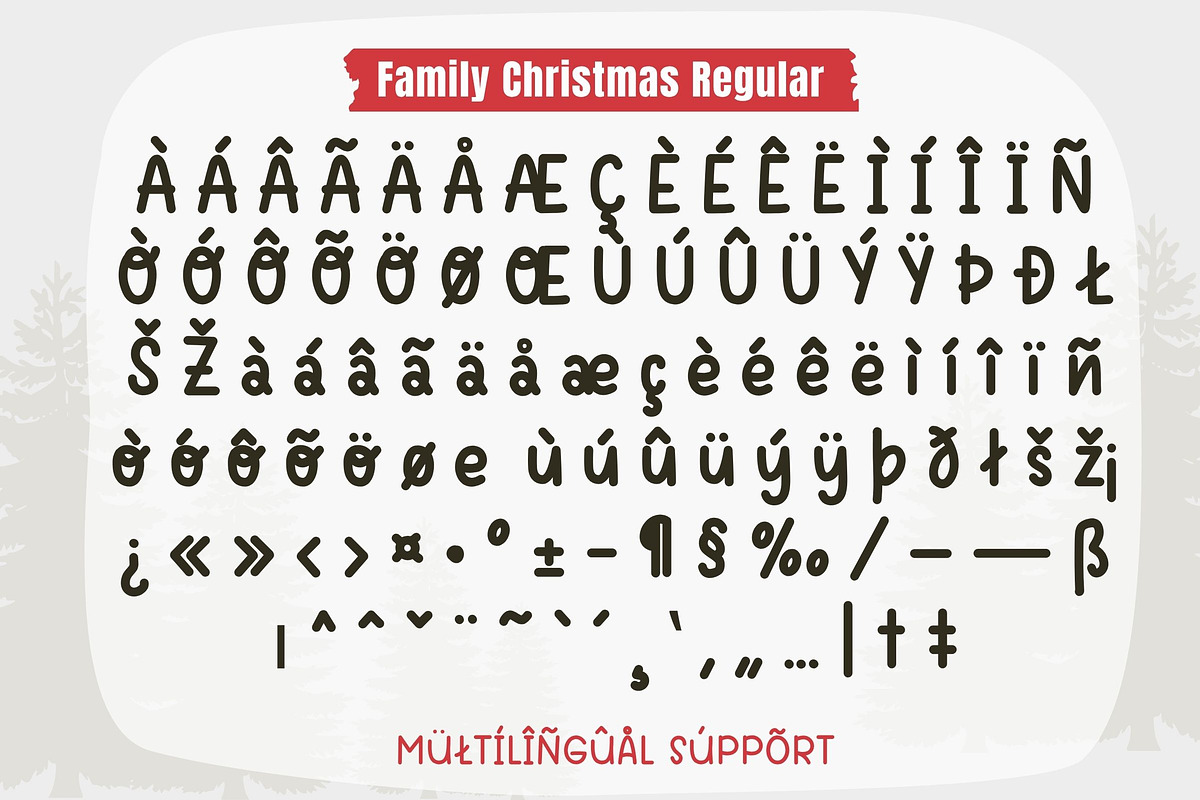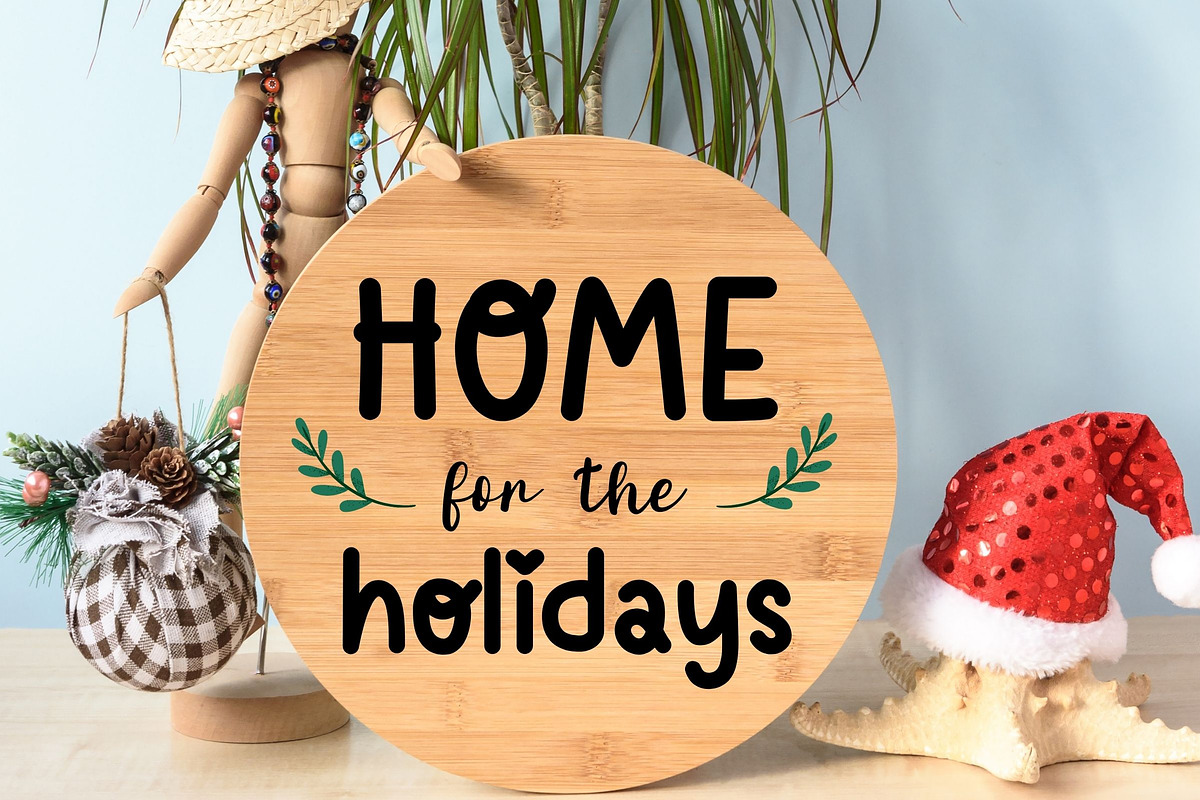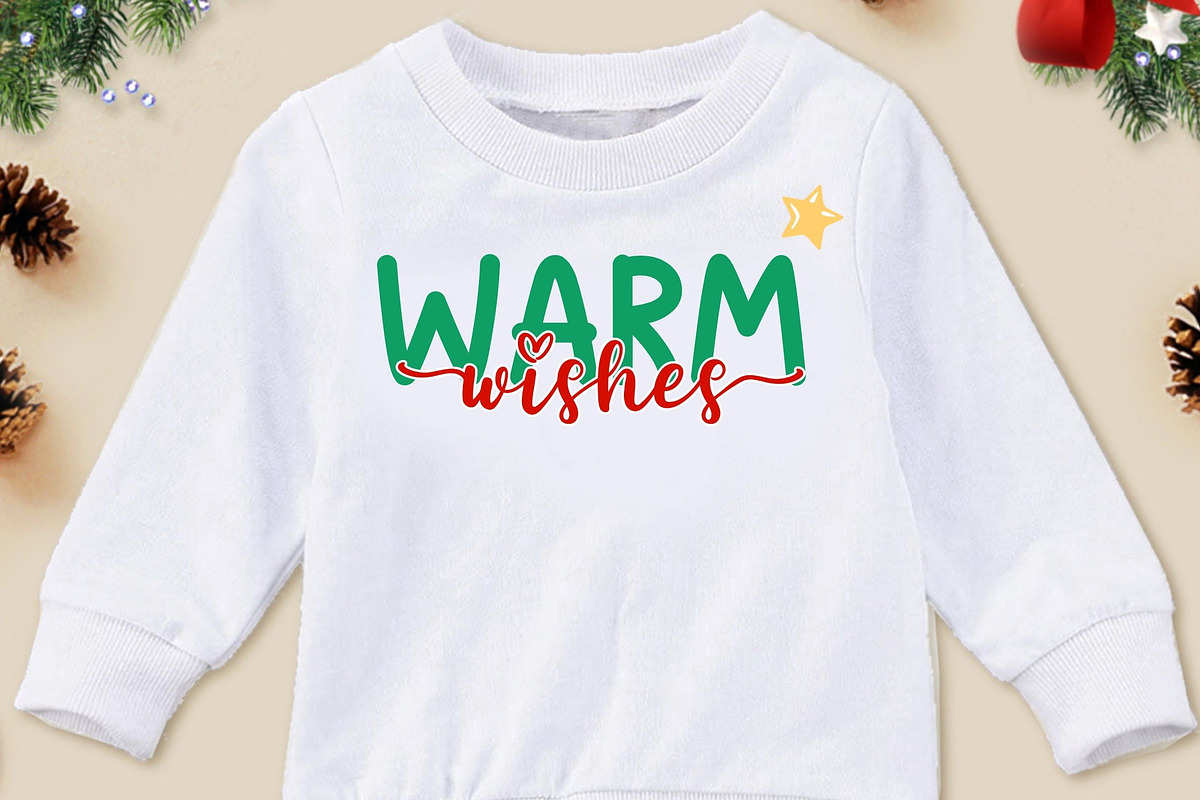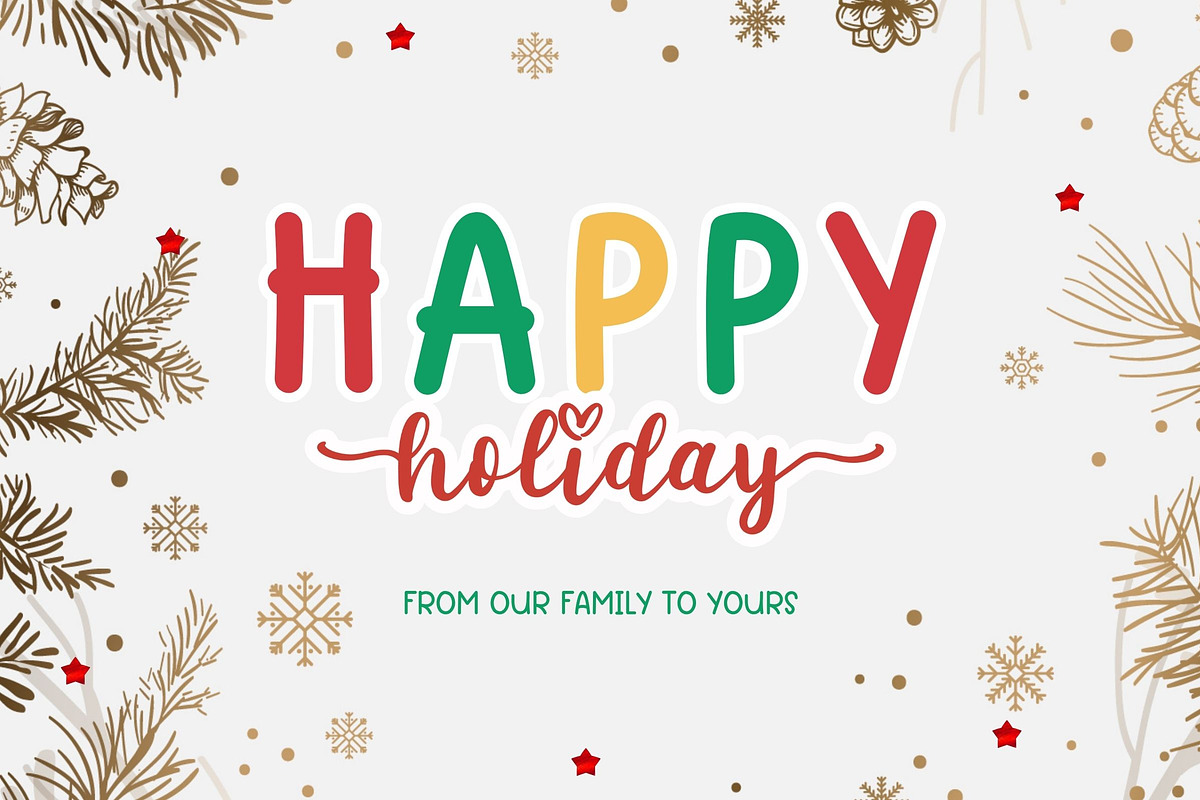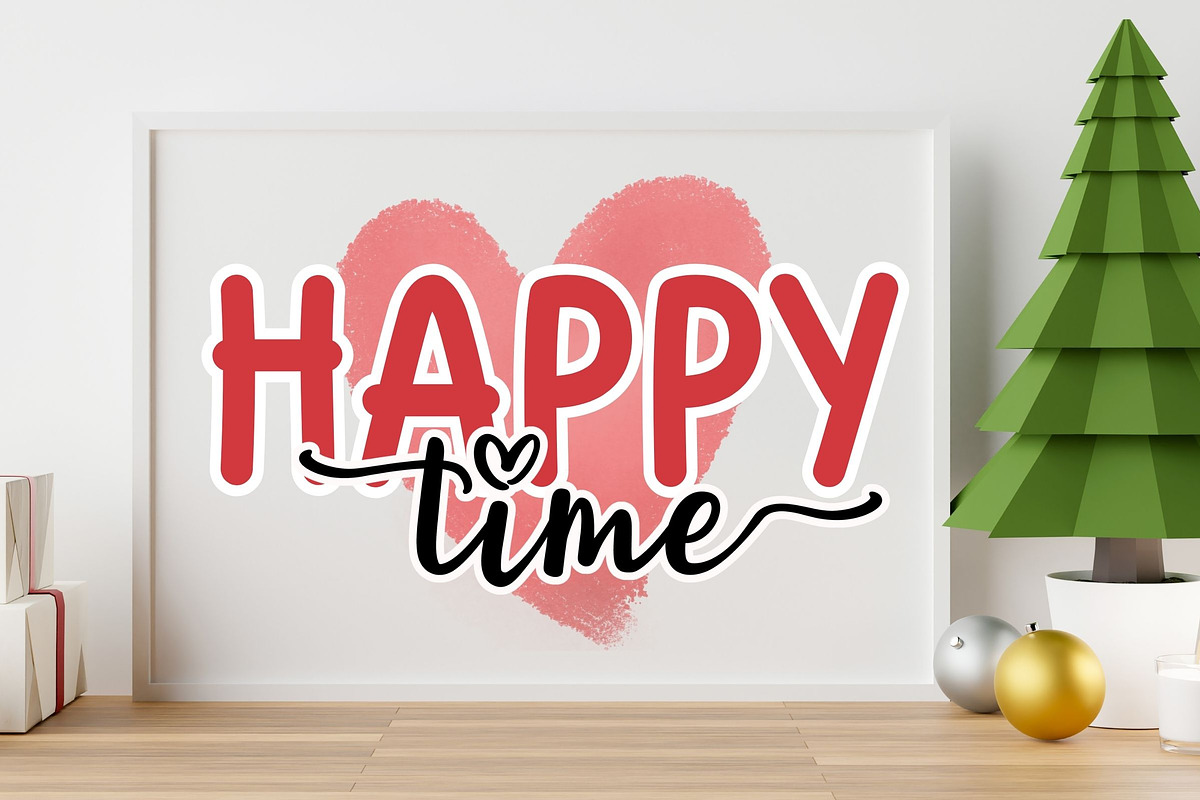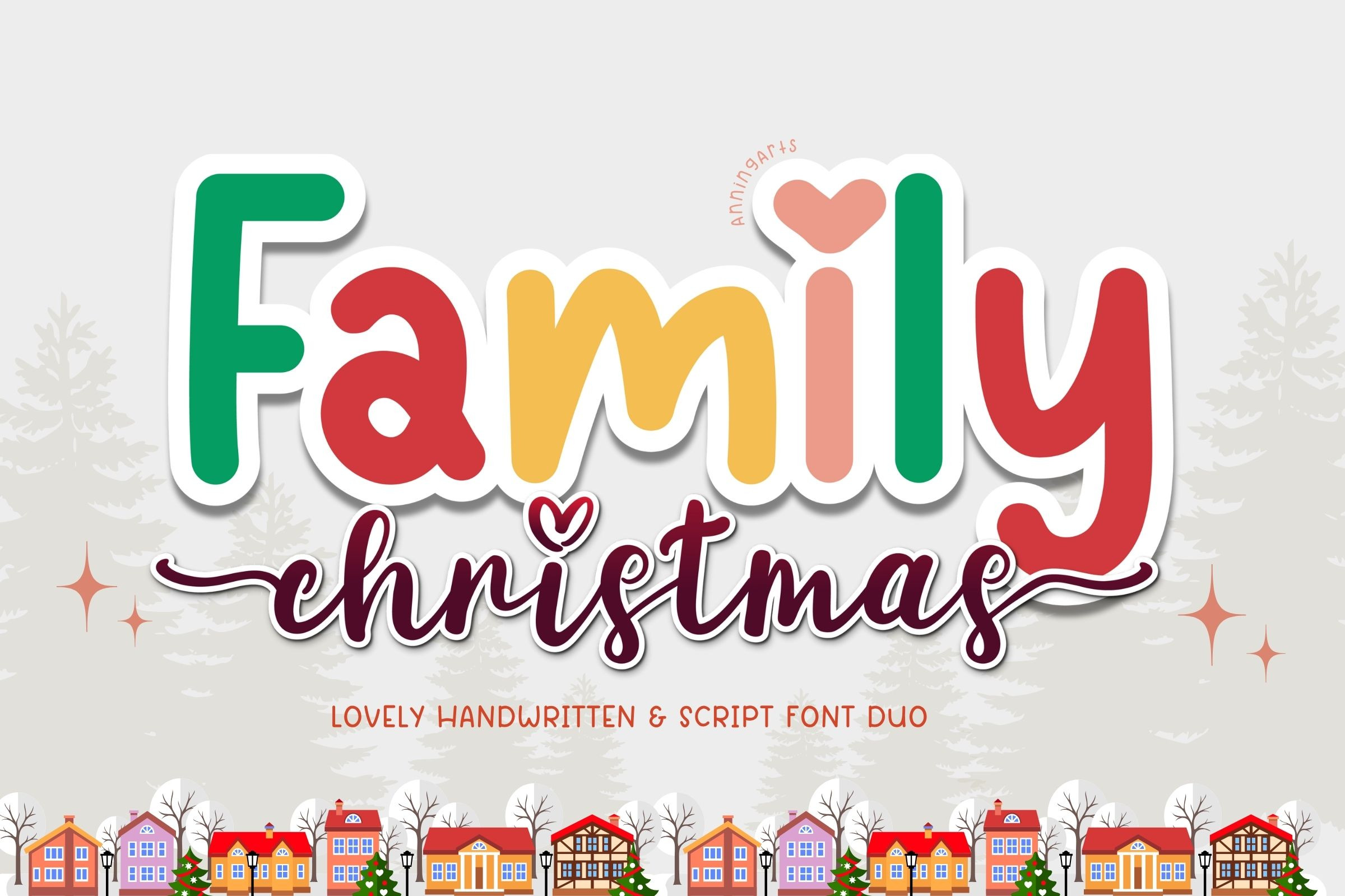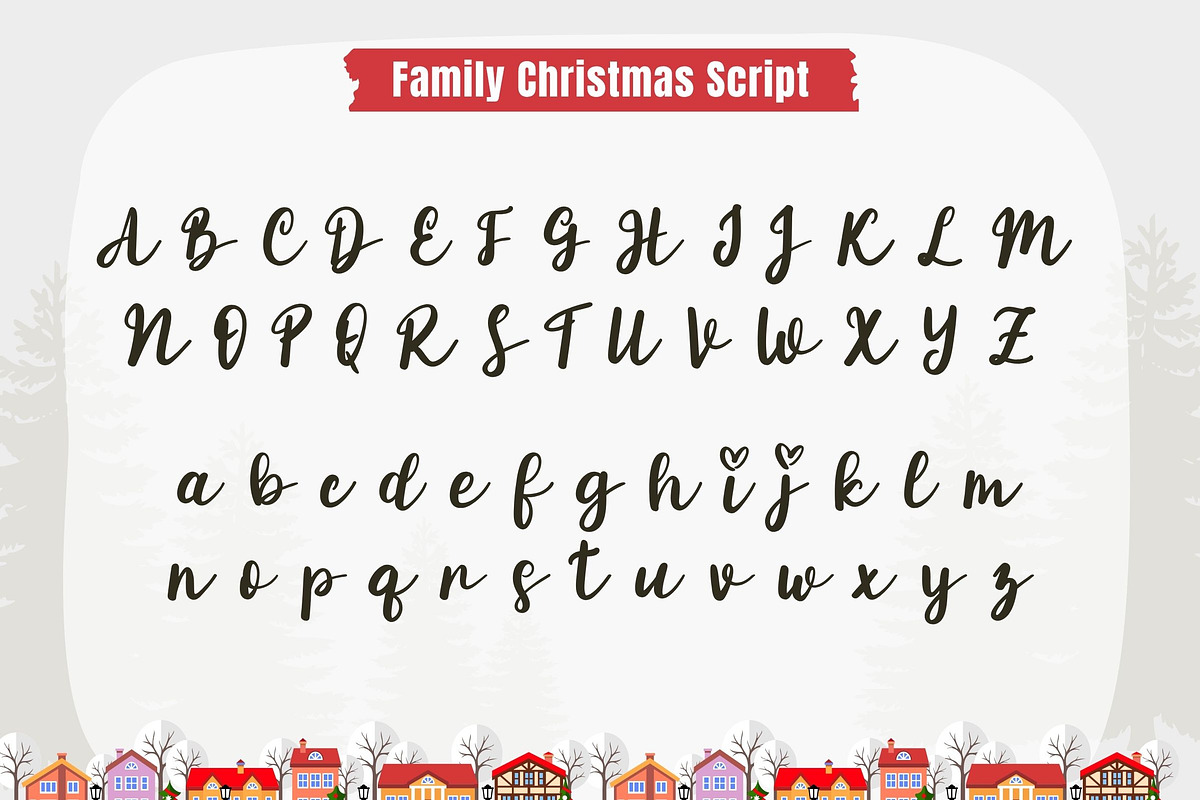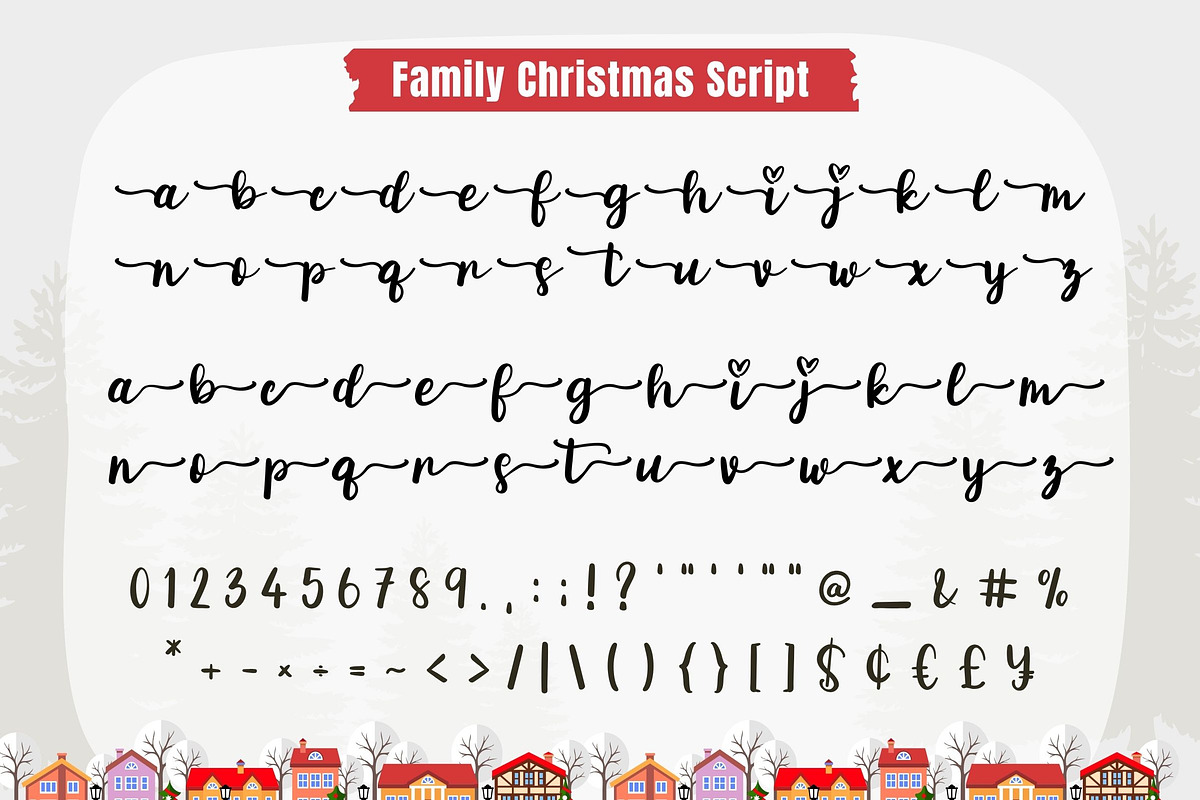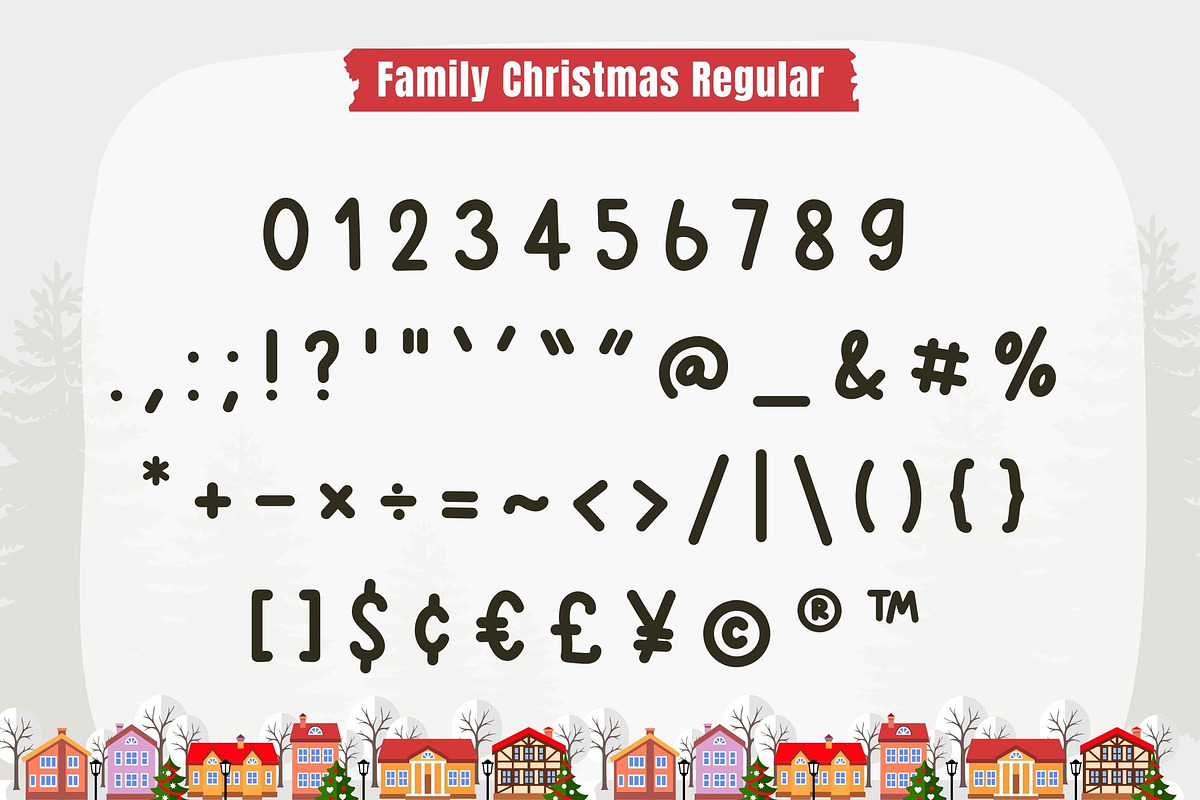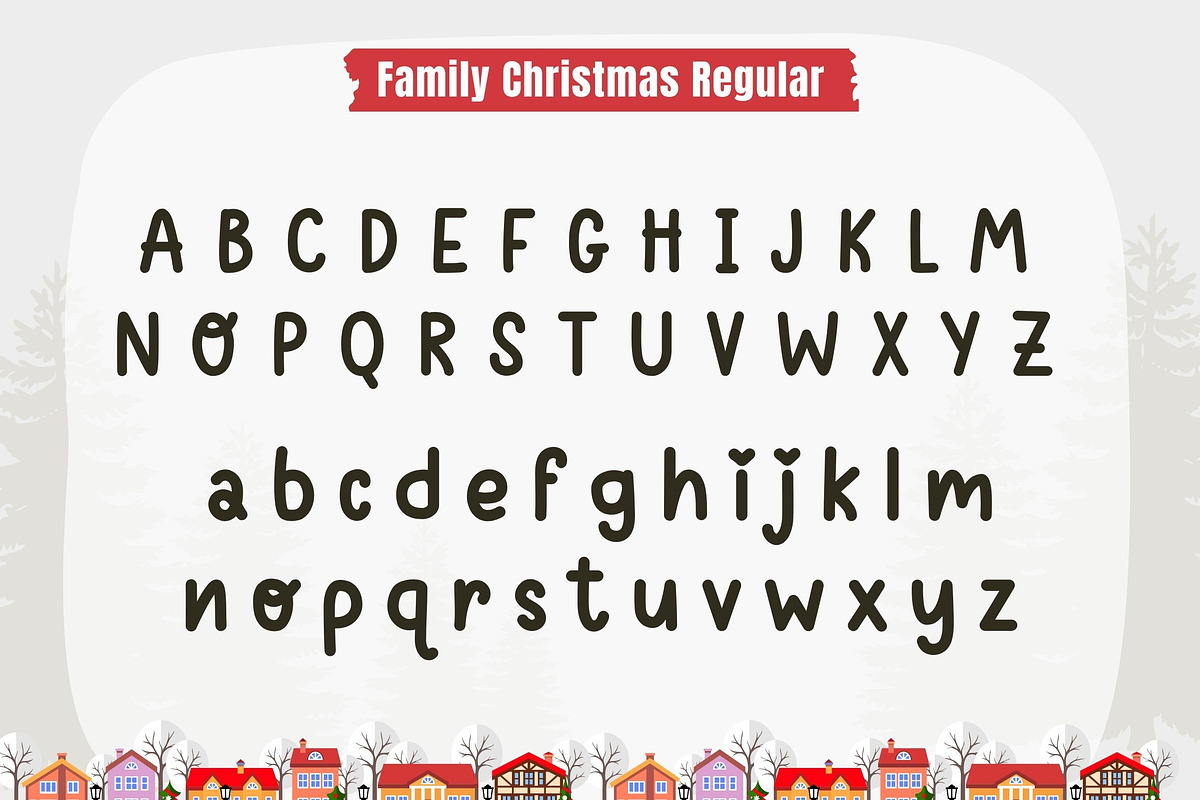
Family Christmas Font Duo
Family Christmas is a lovely handwritten & script font duo that brings warmth and joy to your holiday designs. It features two perfectly matched styles — a cute rounded handwritten font and a flowing heart-dotted script — ideal for Christmas cards, family quotes, festive crafts, and cozy winter projects.Perfect for Cricut and Silhouette users, this duo font makes every design feel cheerful, personal, and full of love!